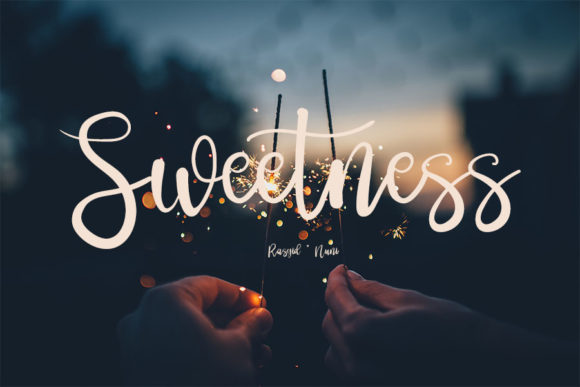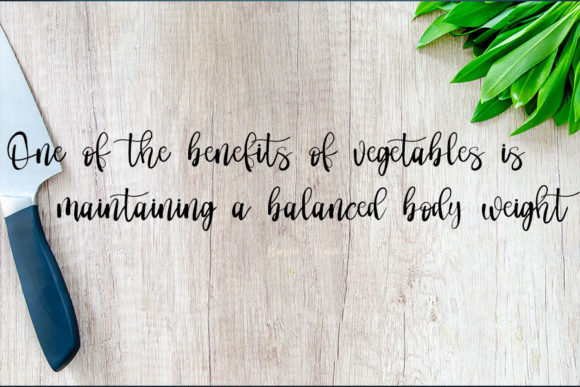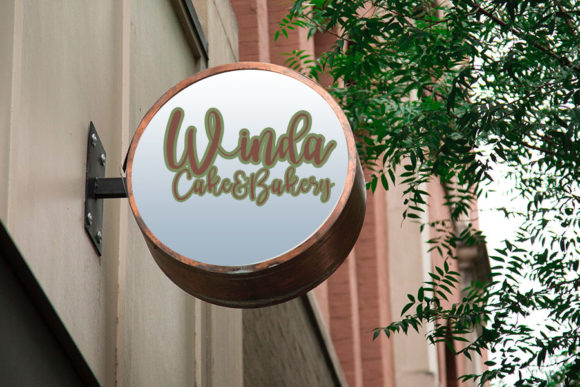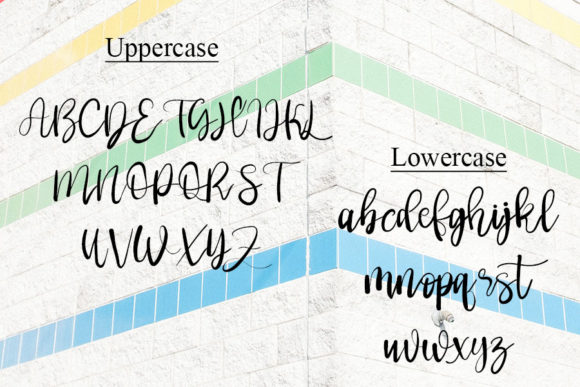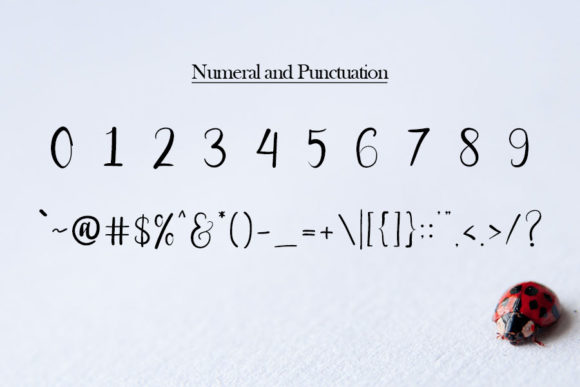
About Sweetness Font
Sweetness is a cursive and round lettered script font. Its distinct and delicate letters make this font a masterpiece. Fall in love with its incredibly versatile style and use it to create spectacular designs!